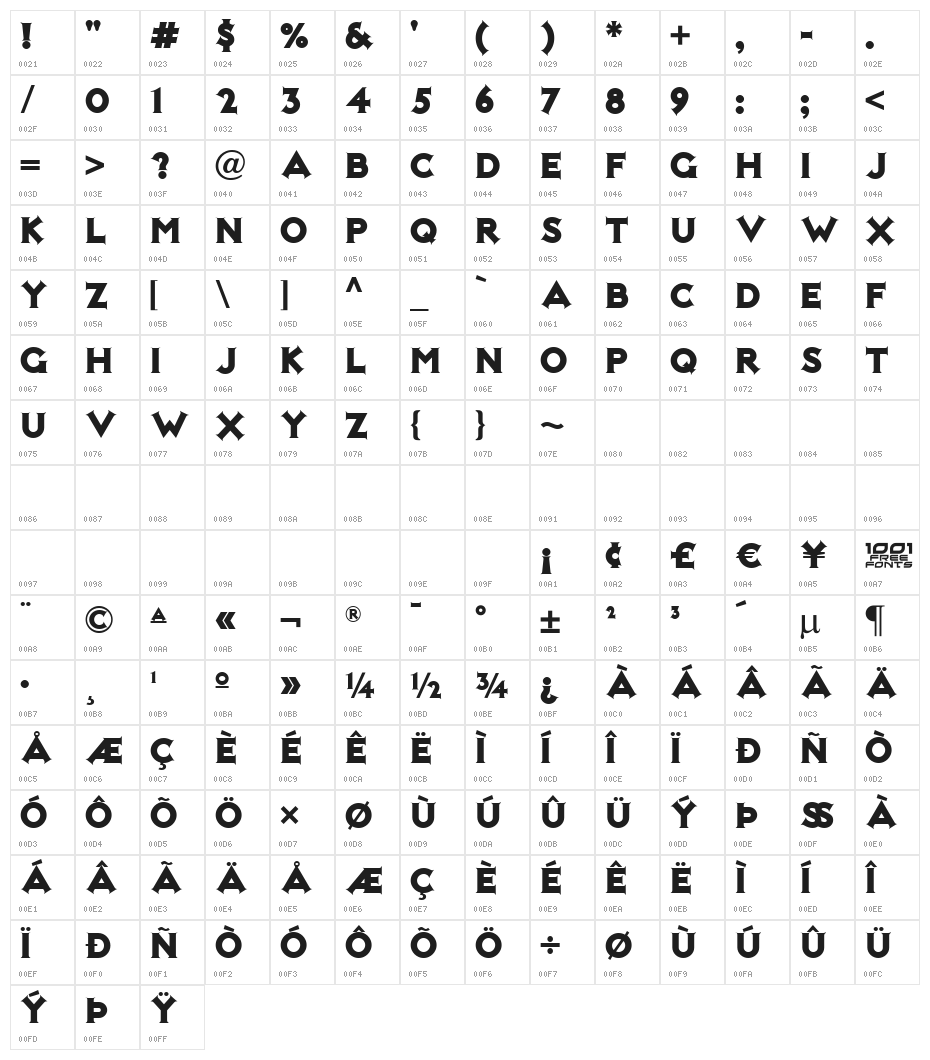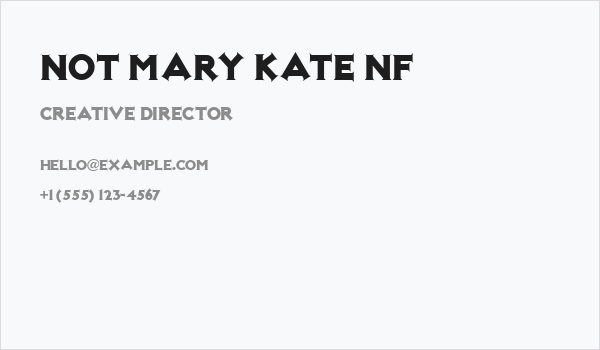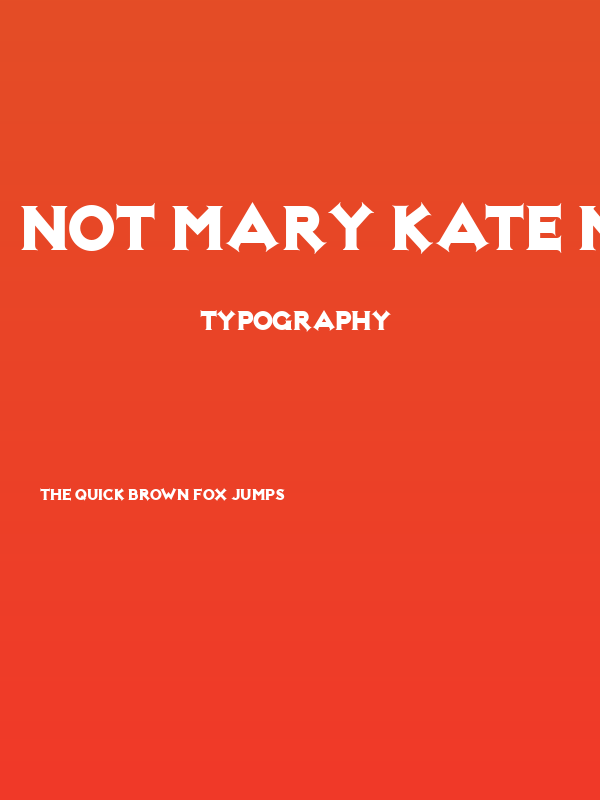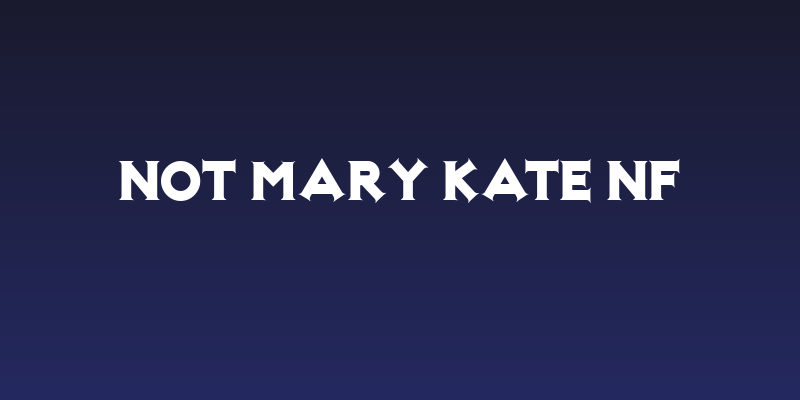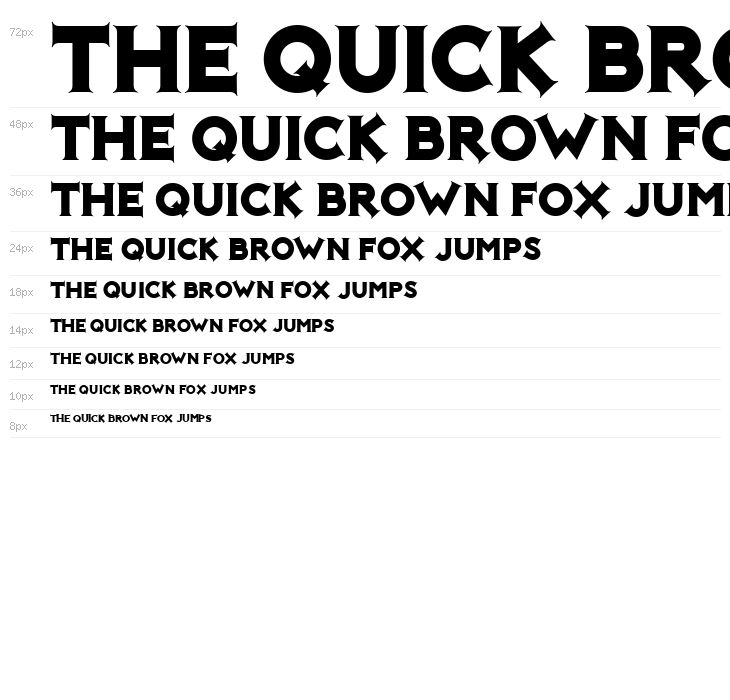
Not Mary Kate NF Font
Not Mary Kate NF Description
This font features a bold and striking design with sharp, angular serifs that give it a distinctive and edgy appearance. The characters are well-defined and maintain a consistent weight throughout, providing a sense of uniformity and balance. The uppercase and lowercase letters are crafted with precision, showcasing a modern twist on traditional serif styles. The numerals are bold and easily readable, making them suitable for various applications. Special characters are included, maintaining the same bold and angular style, ensuring consistency across all glyphs.
| Proposed Projects | Ideal for branding, headlines, posters, and any project requiring a strong visual impact. |